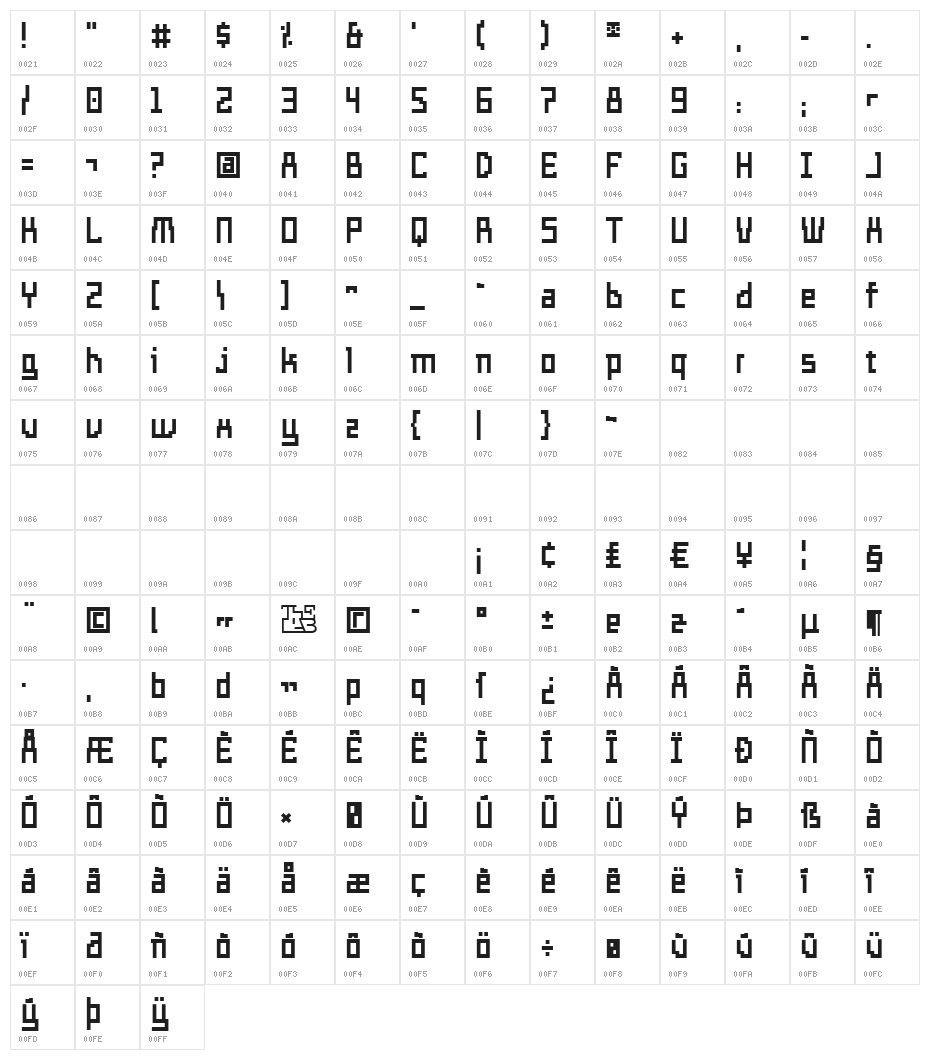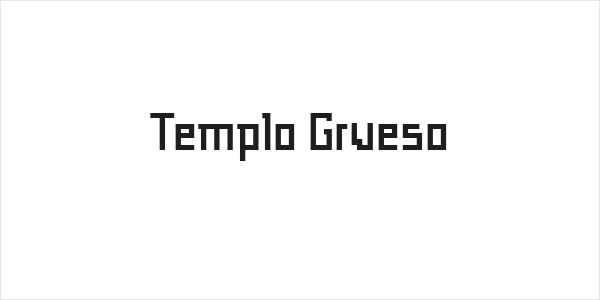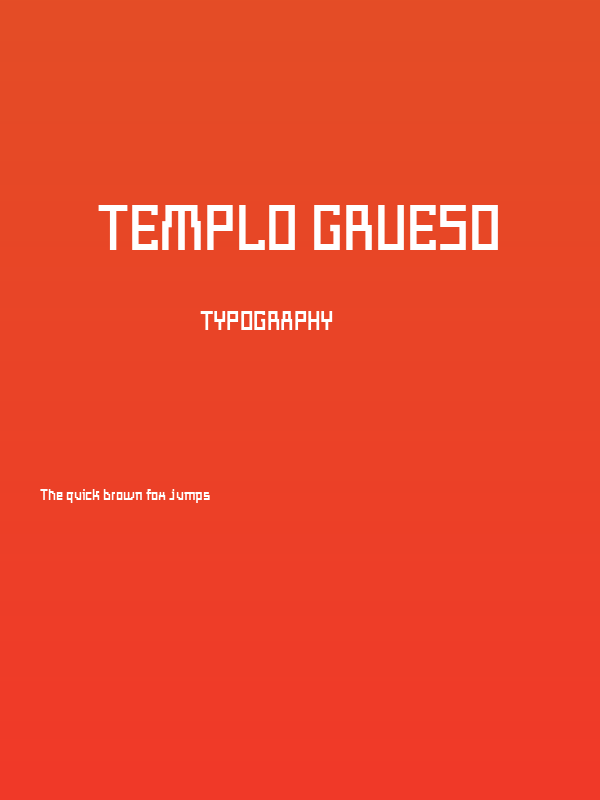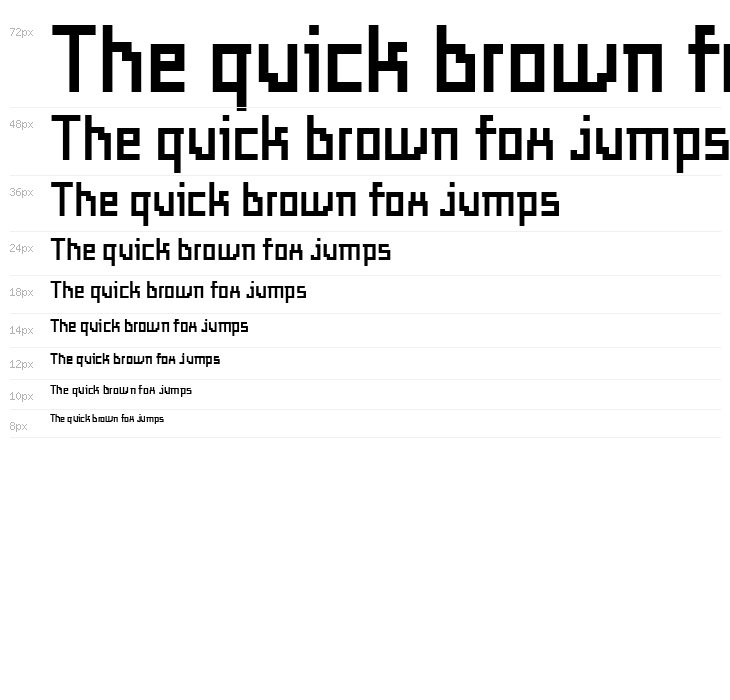
Templo Grueso Font
Templo Grueso Description
This font features a bold, geometric design with a pixelated, blocky appearance. Each character is constructed with uniform thickness, giving it a digital, retro aesthetic reminiscent of early video game graphics. The uppercase and lowercase letters maintain a consistent height, contributing to a monospaced feel, although the font itself is not strictly monospaced. The numerals and special characters follow the same design principles, ensuring a cohesive look across all glyphs. The font's distinct style makes it stand out, with sharp angles and a lack of curves, emphasizing its modern, tech-inspired roots.
Proposed ProjectsIdeal for video game design, tech-themed posters, digital art projects, and retro-style branding.